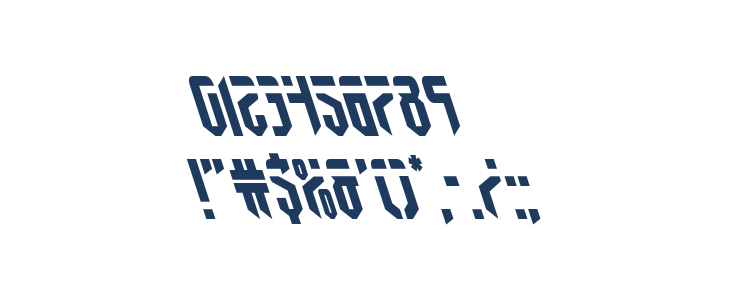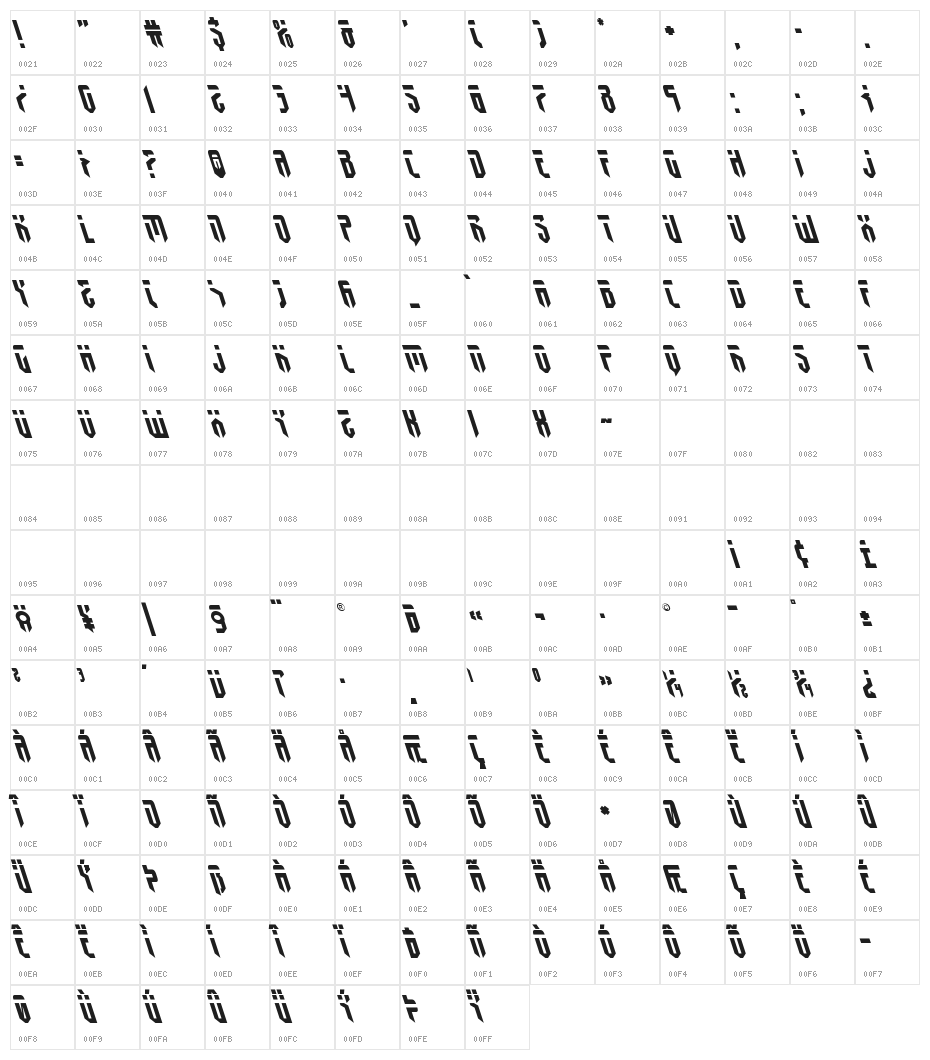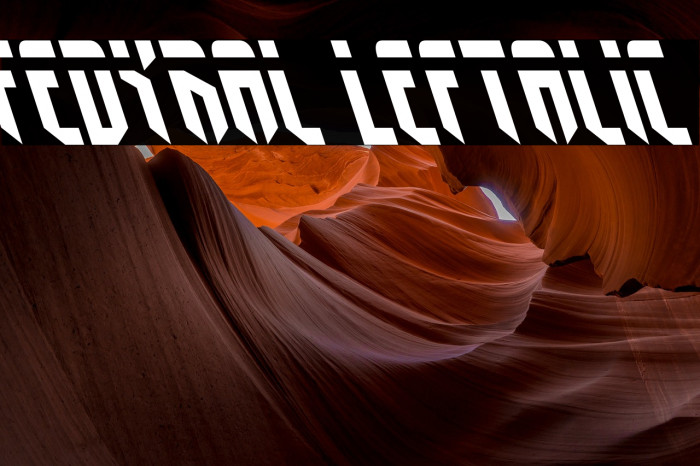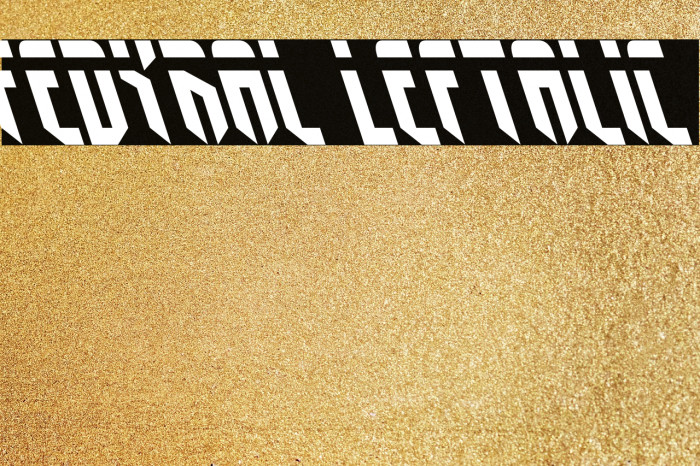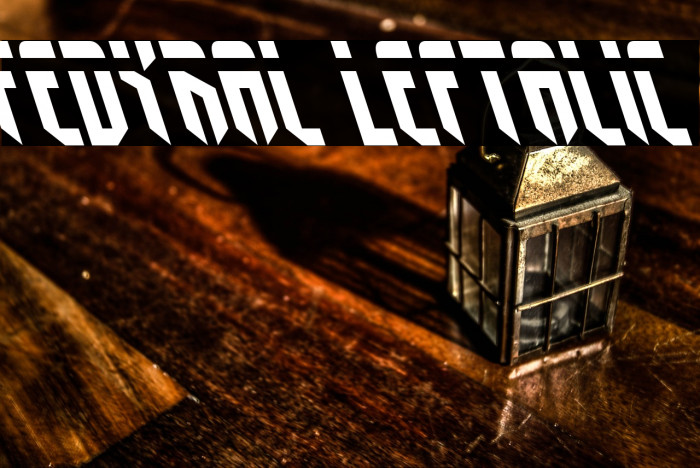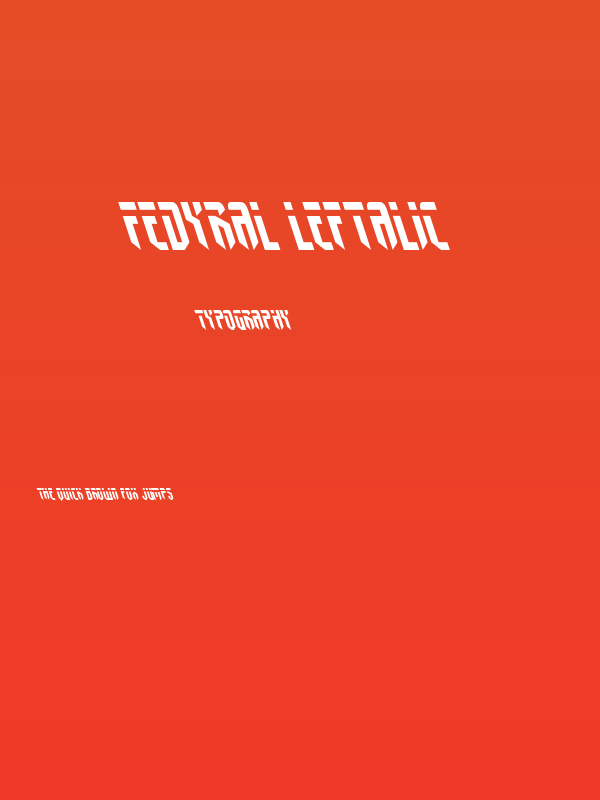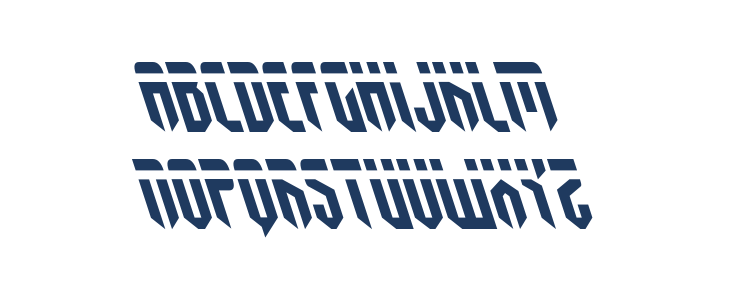
Fedyral Leftalic Font
Fedyral Leftalic Description
This font features a bold, angular design with a futuristic and geometric aesthetic. The characters are sharply defined, with a distinct slant to the left, giving it a dynamic and forward-moving appearance. The uppercase and lowercase letters maintain a consistent style, with thick strokes and sharp edges. The numbers and special characters follow the same angular theme, ensuring uniformity across all glyphs. This font's unique style makes it stand out, ideal for projects that require a modern and edgy look.
| Proposed Projects | Ideal for sci-fi themed designs, video game titles, tech branding, and modern posters. |